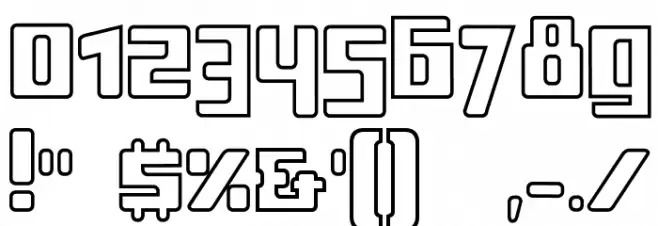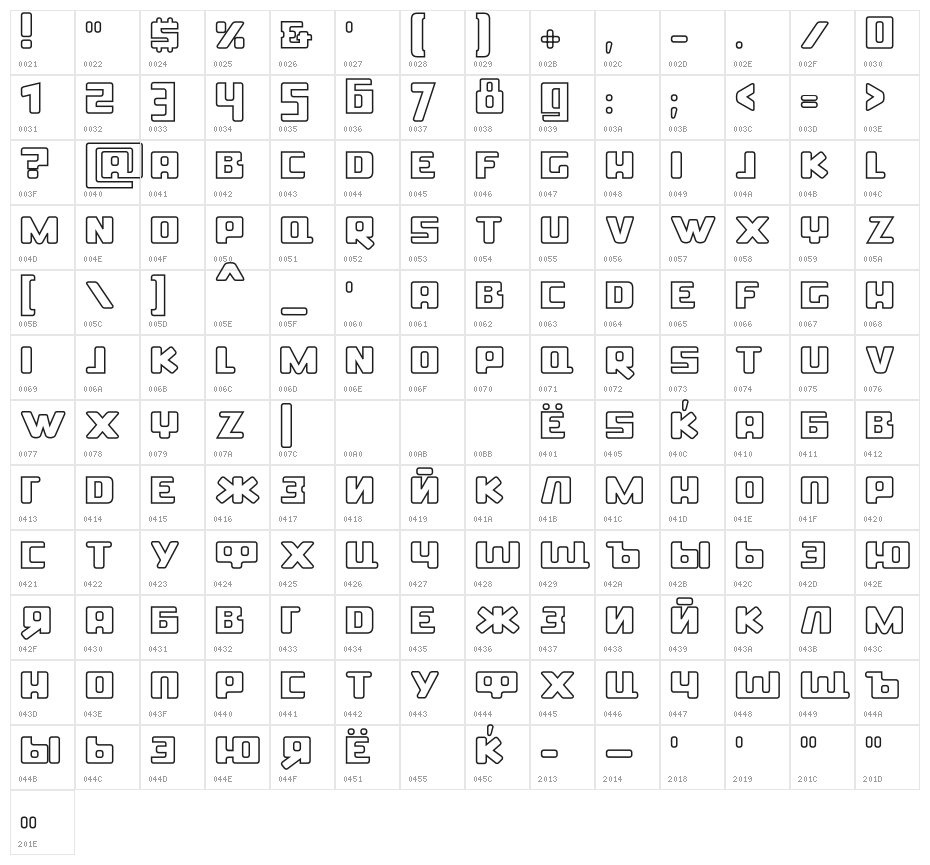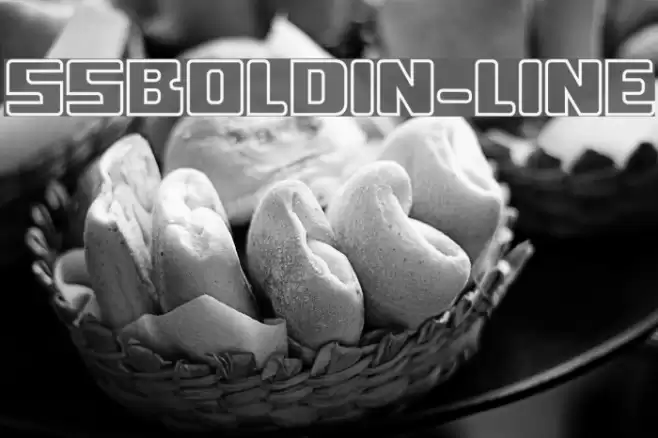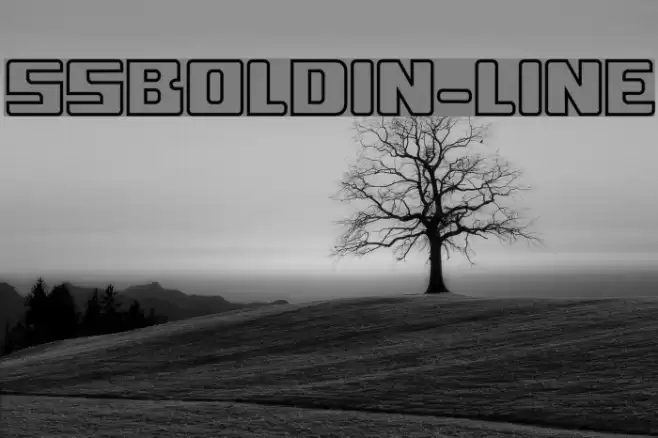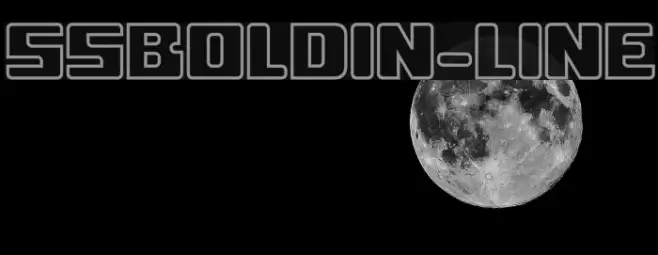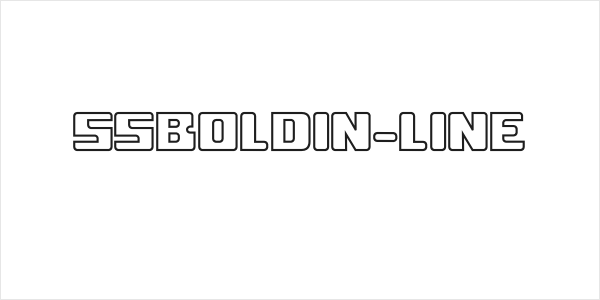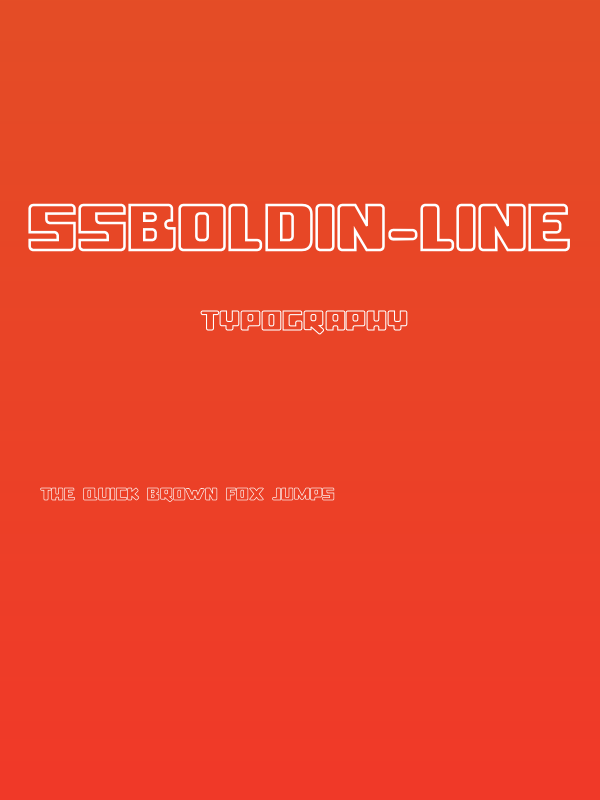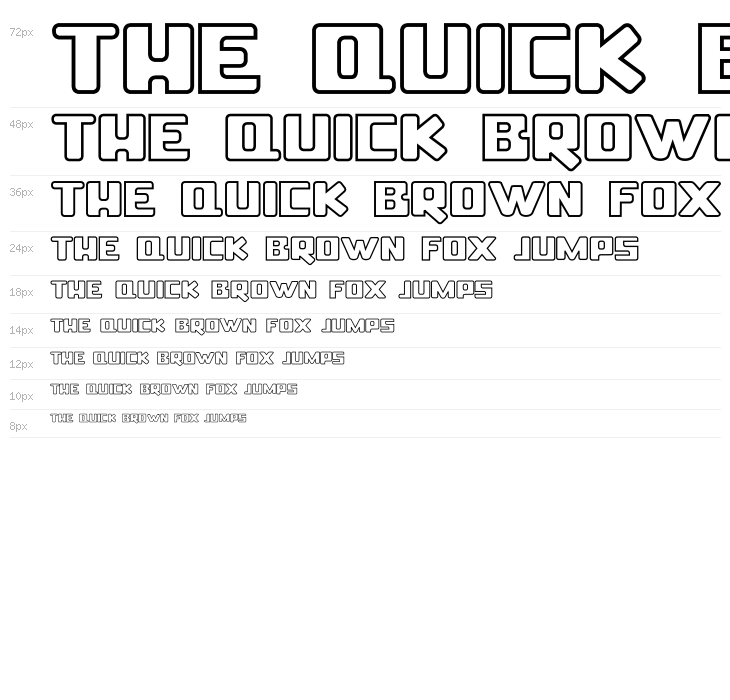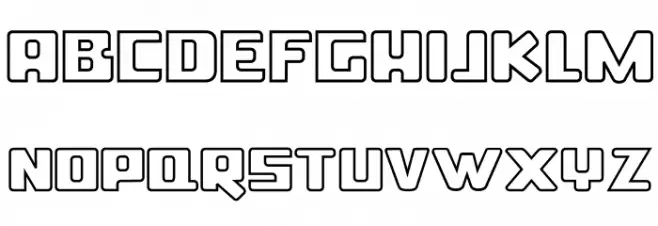
ssboldin-Line Font
This font features a bold, geometric style with a strong emphasis on clean lines and angular shapes. Each character is outlined, creating a hollow effect that adds a modern and futuristic touch. The uppercase and lowercase letters maintain a consistent width, giving the font a uniform appearance. Numbers and special characters follow the same design principles, ensuring a cohesive look across all elements. The font's distinct style makes it suitable for projects that require a contemporary and eye-catching typeface.
| Proposed Projects | Ideal for branding, posters, digital media, and any project that requires a modern and striking typeface. |